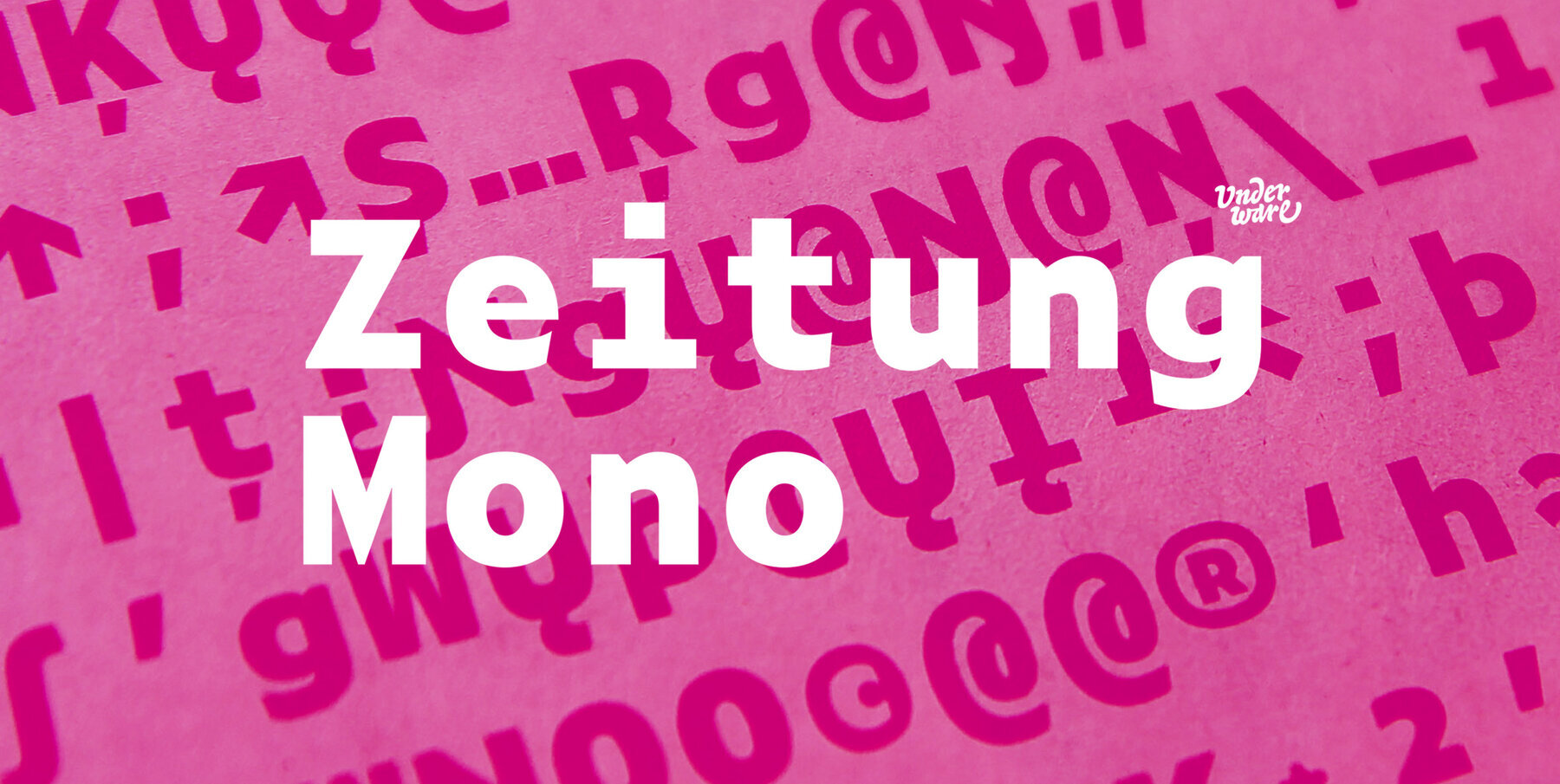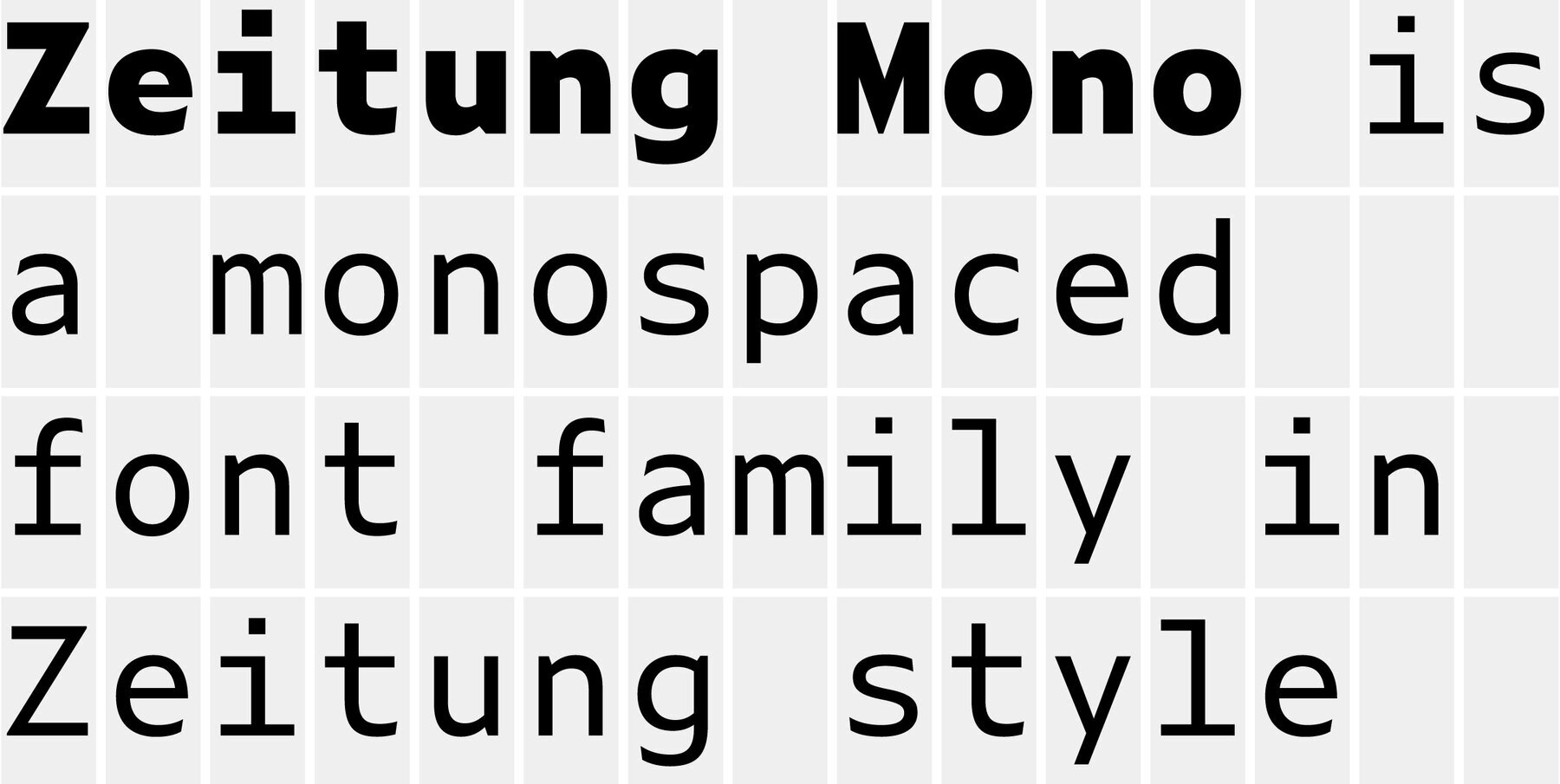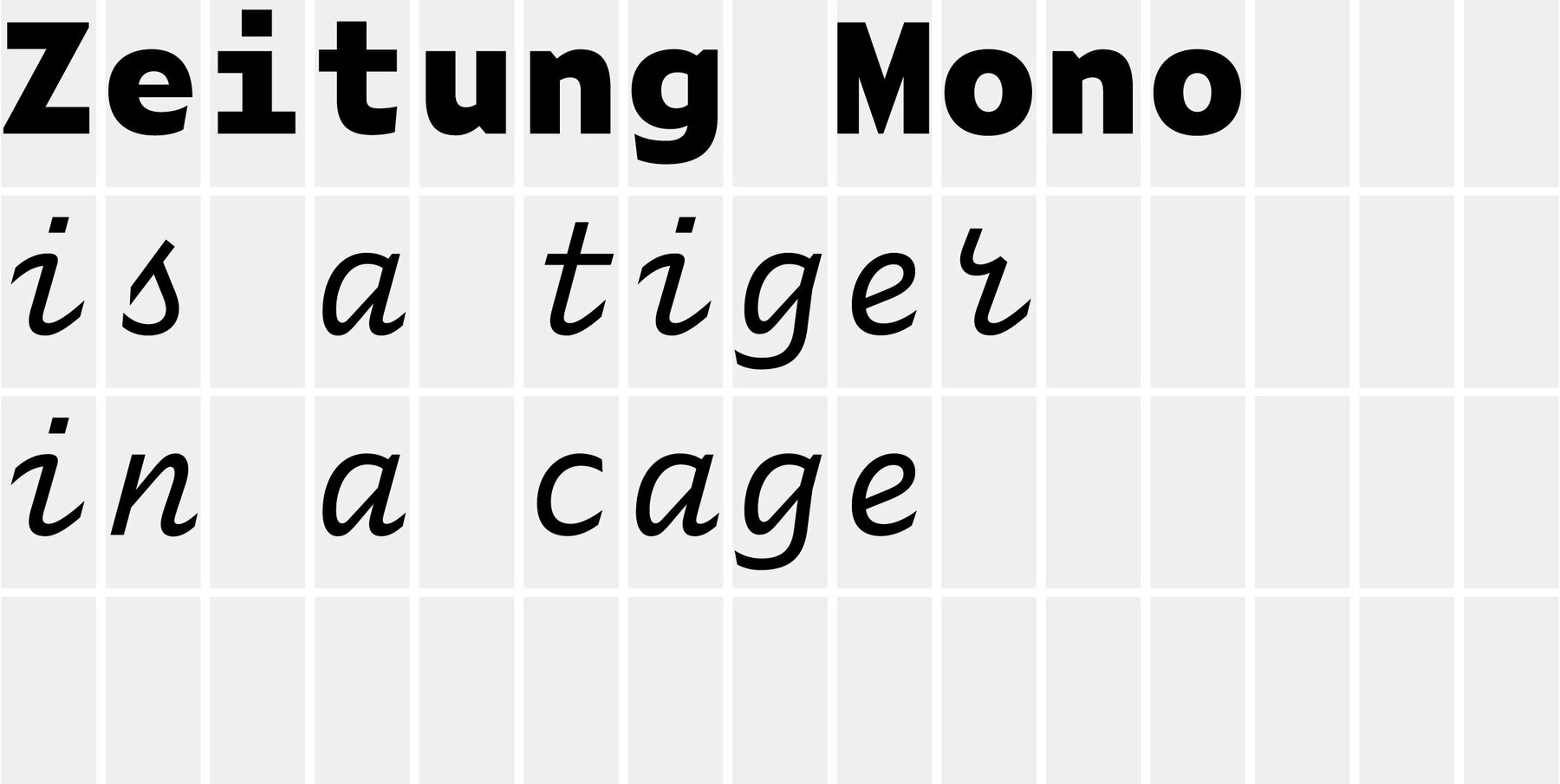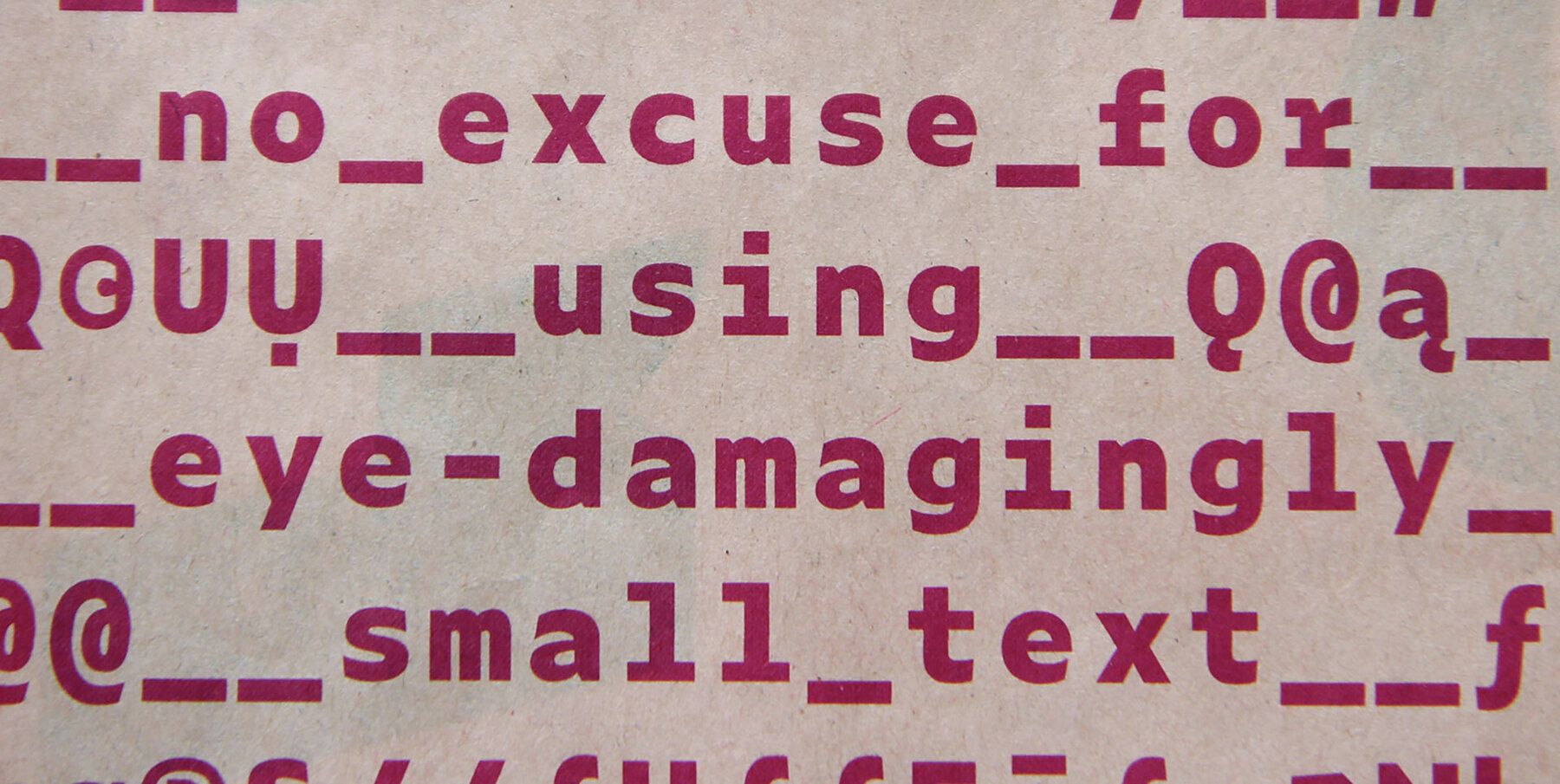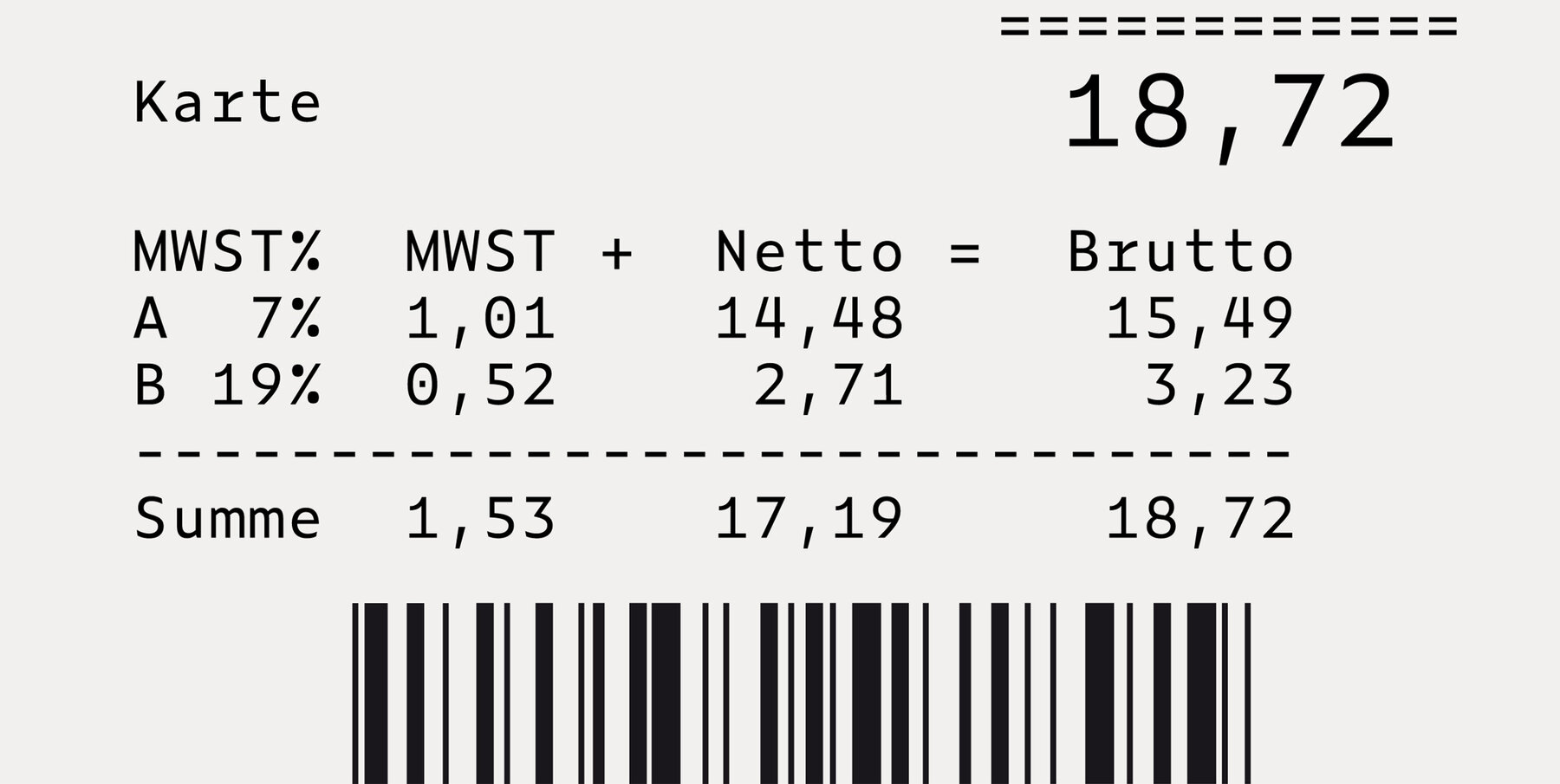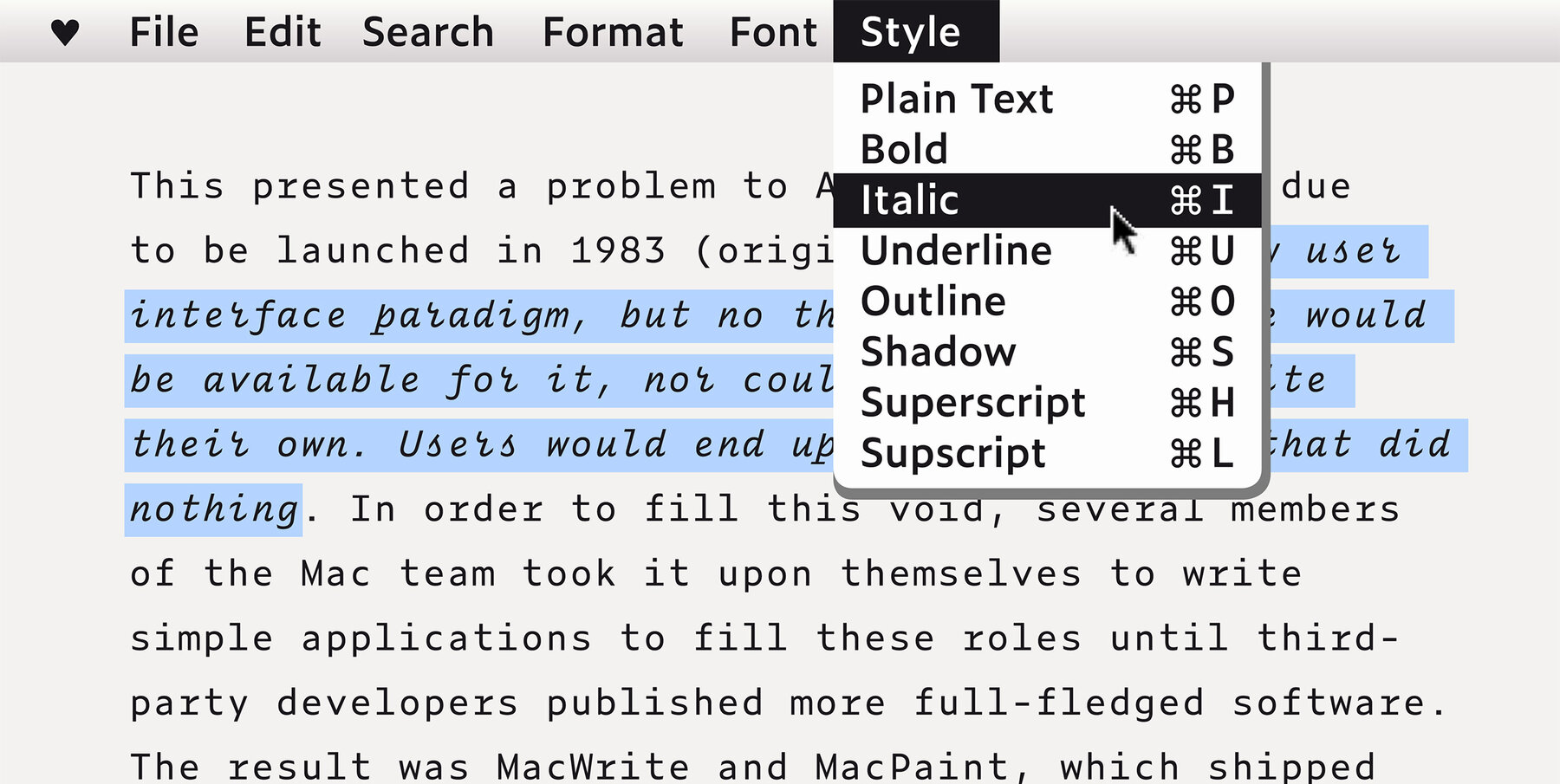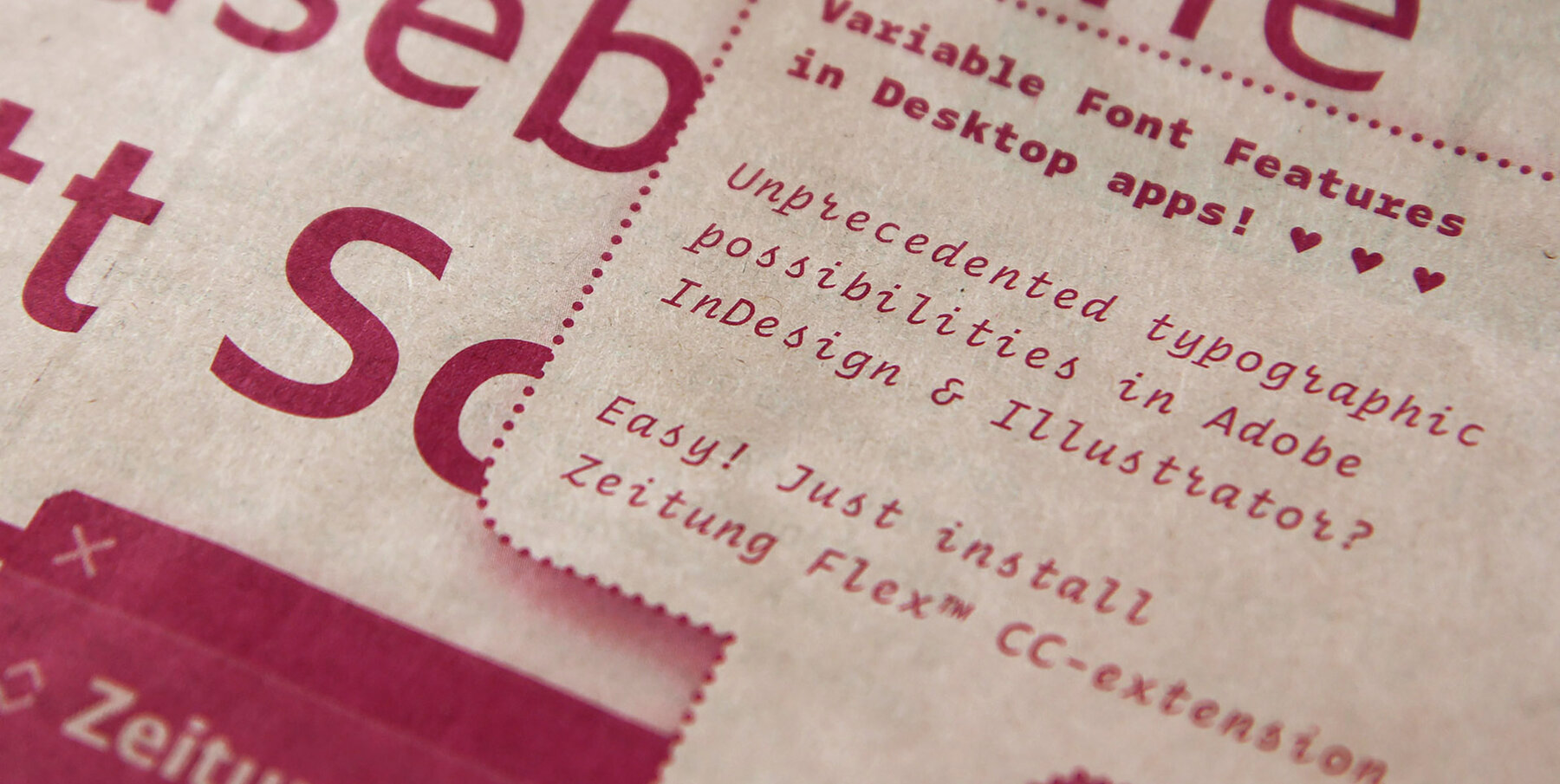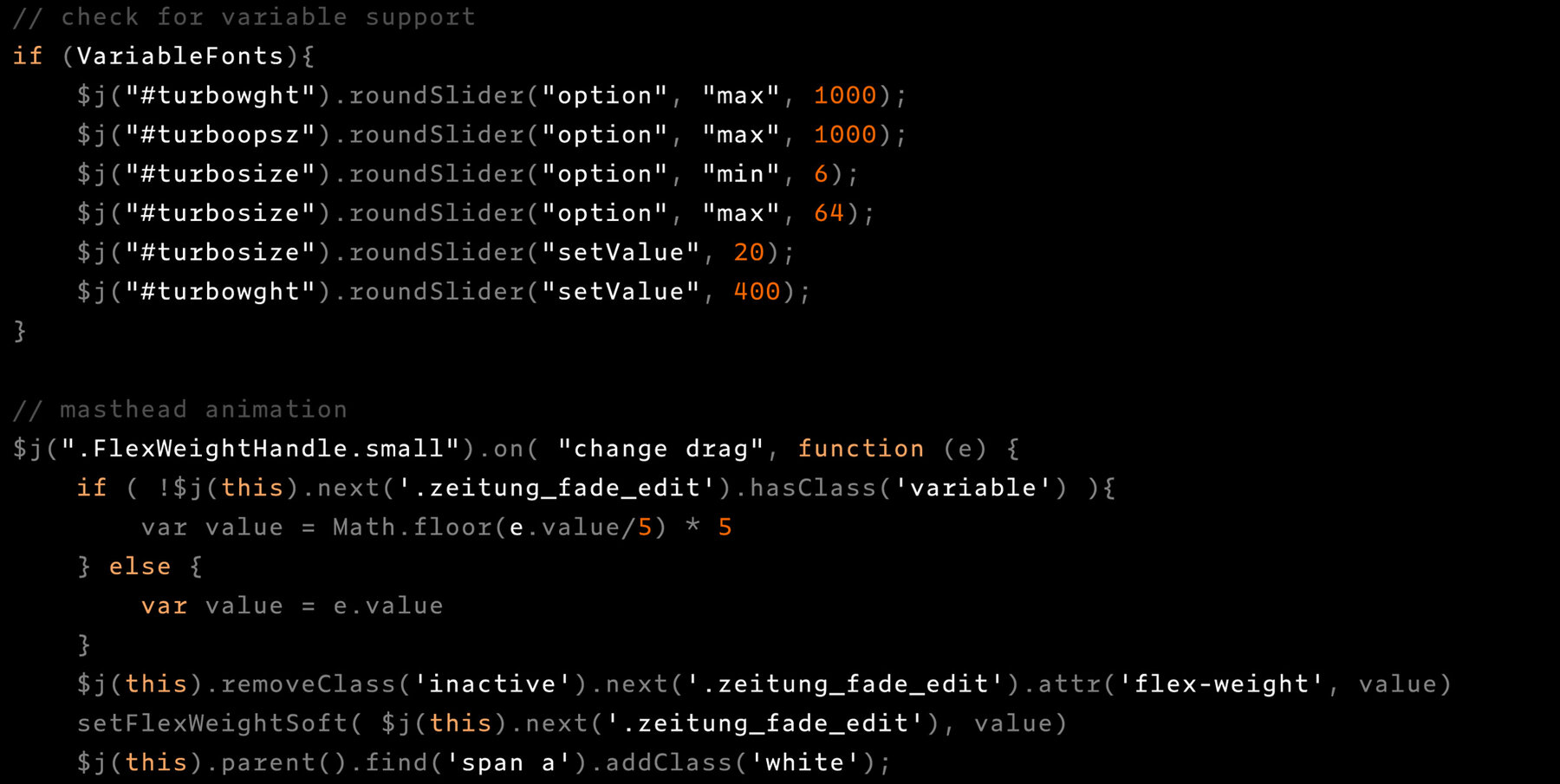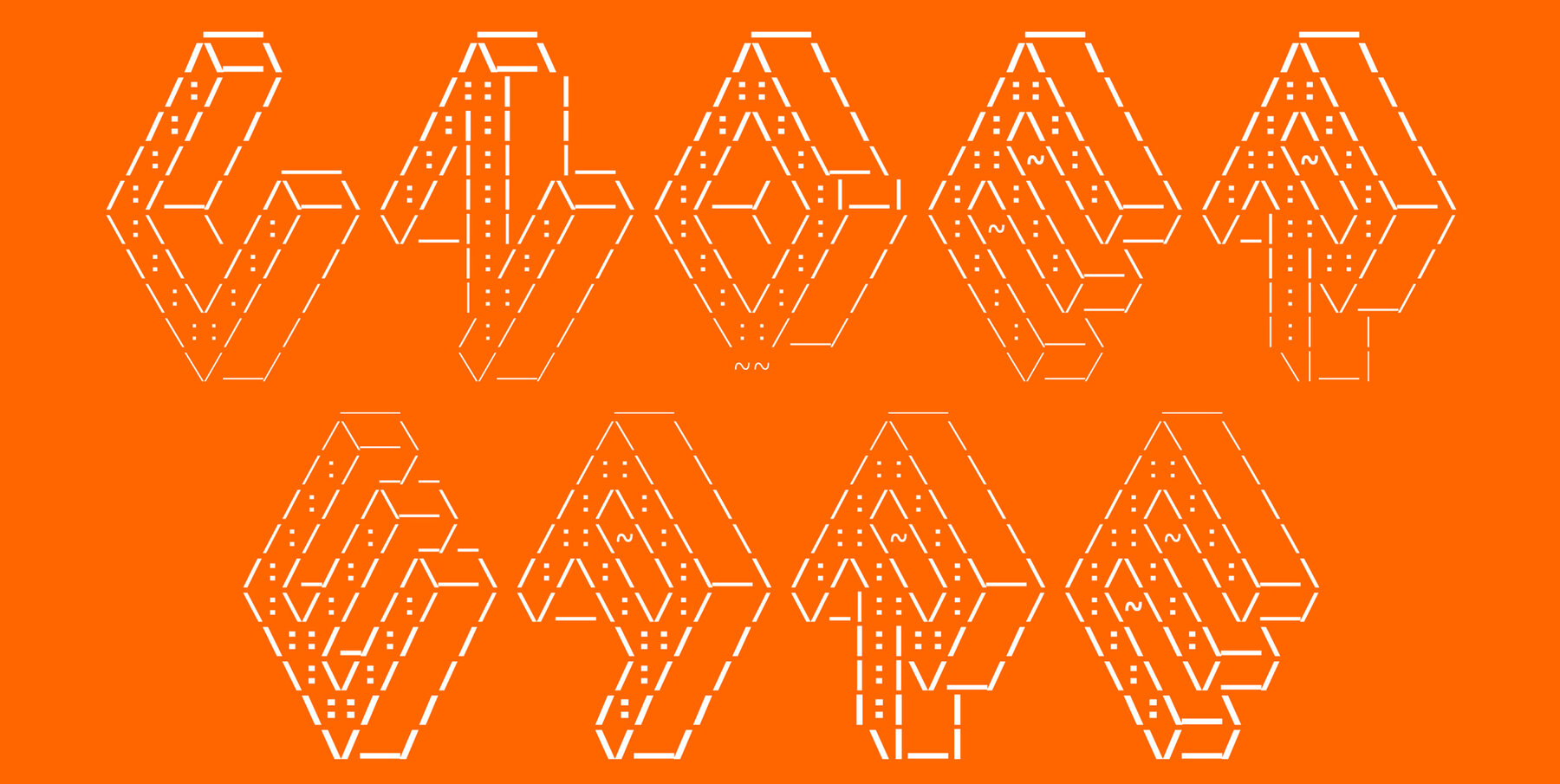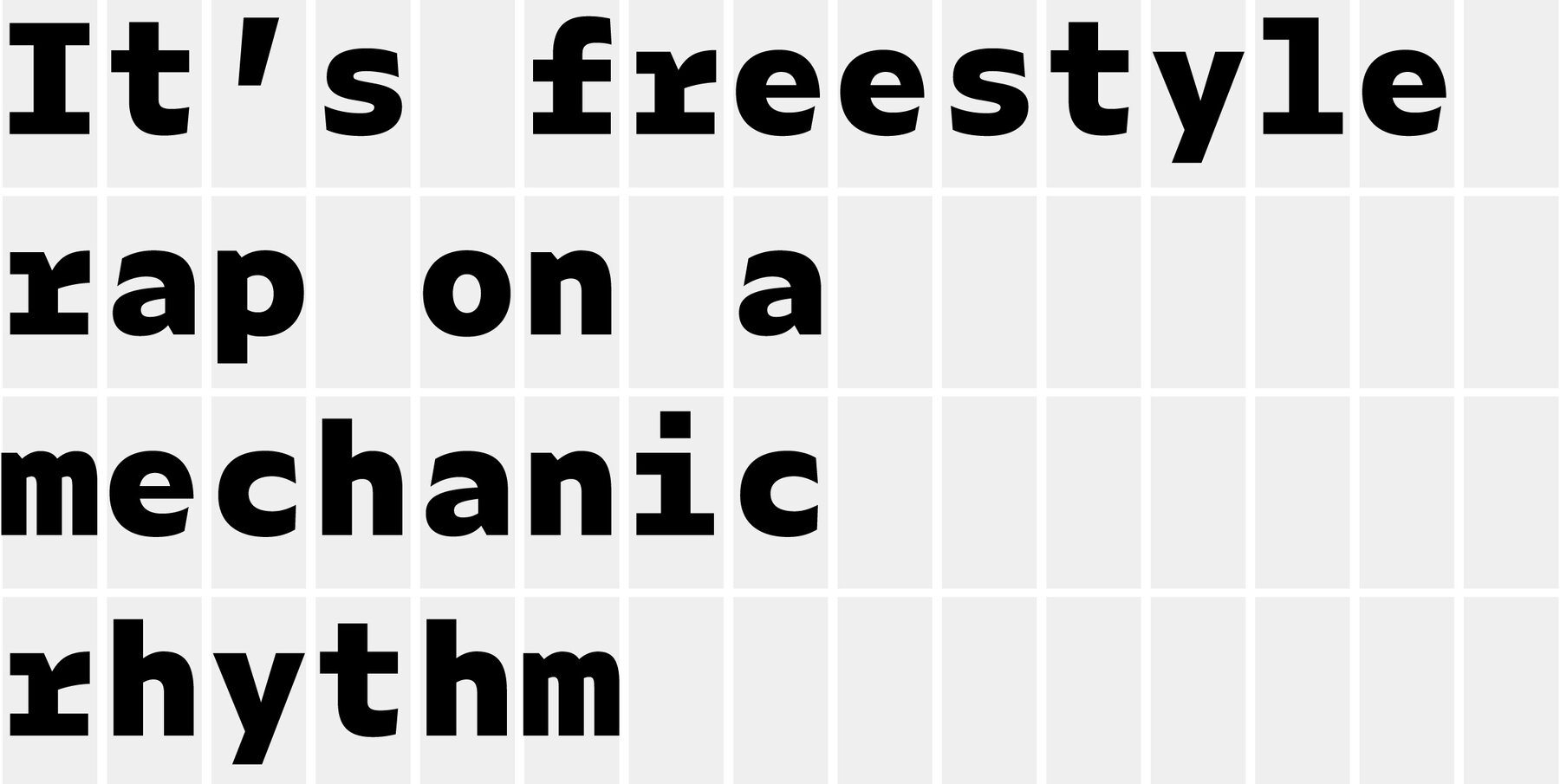
Zeitung Mono Pro Font
Zeitung Mono is the monospaced companion to the Zeitung family, a sans serif which works well in small sizes on screen. This monowidth font family increases the functionality of the Zeitung font family, resulting in happy programmers, smiling ASCII-kids, razor-sharp journalists and finally: worldpeace. Zeitung Mono is everything a contemporary monospaced font needs to be. A good monospaced font has a fancy italic for unmistakable distinction & lots of weights which supply a broad typographic palette. So you may guess once what Zeitung Mono has. Right, exactly that.